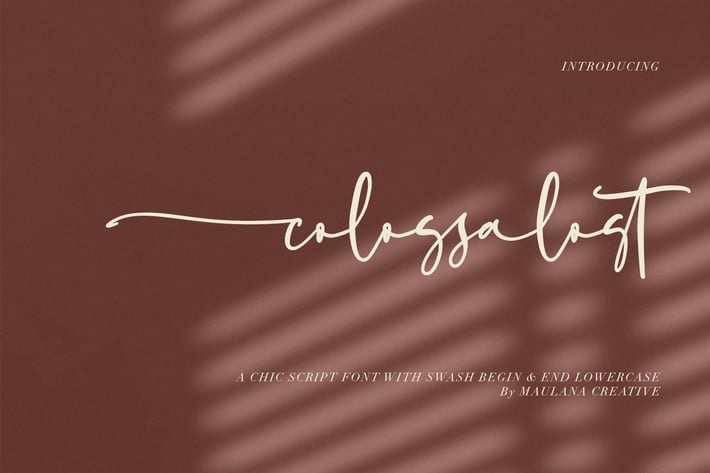
Colossalost Script Font With Swash
Colossalost Script Font With Swash is a fun script font, fresh & modern style. Colossalost Script Font suitable for logo, branding, greeting card, poster and any design that you create. Colossalost Script font include three OTF and three TTF.